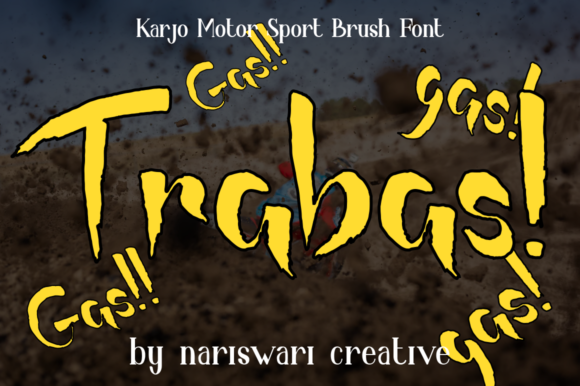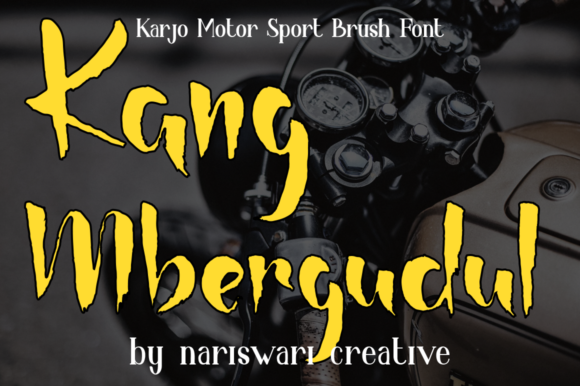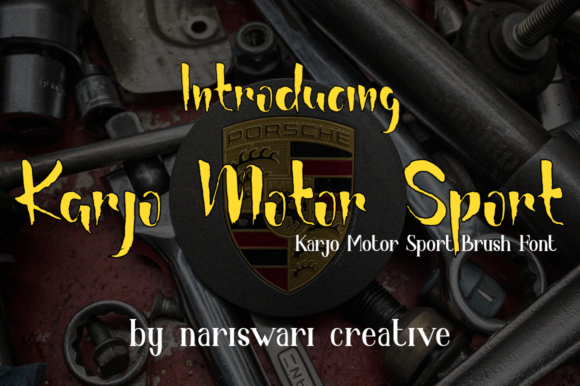
Introduction to Karjo Motor Sport Font
Karjo Motor Sport is a rough textured and bold display font.
No matter the topic, this font will be an incredibly asset to your fonts’ library, as it has the potential to elevate any creation .
Key Features of Karjo Motor Sport Font
Why Choose Karjo Motor Sport Font?
Karjo Motor Sport Font offers exceptional quality and versatility, making it a valuable addition to your design toolkit. Whether you’re creating for personal projects or commercial use, Karjo Motor Sport Font delivers professional results.